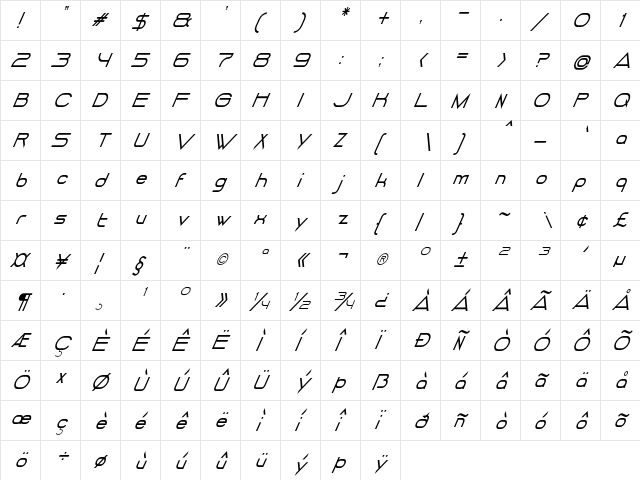
DANCING JUICE Italic
| Foundry | rimando nillo, jr. |
| Designer | dondon nillo |
Design Context for DANCING JUICE Typeface
DANCING JUICE takes a measured approach to typography — its balanced proportions and neutral character make it a reliable workhorse for both digital and print work. The slanted form adds forward momentum and visual energy.
Pro Tip: Try DANCING JUICE for annotation and caption copy alongside an upright companion — the contrast in angle creates a dynamic but ordered typographic system.